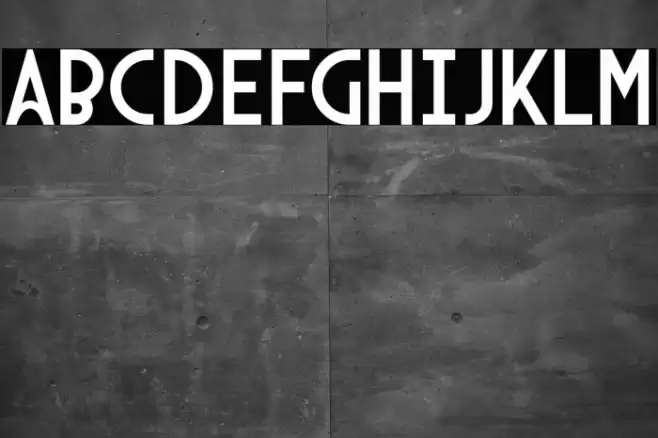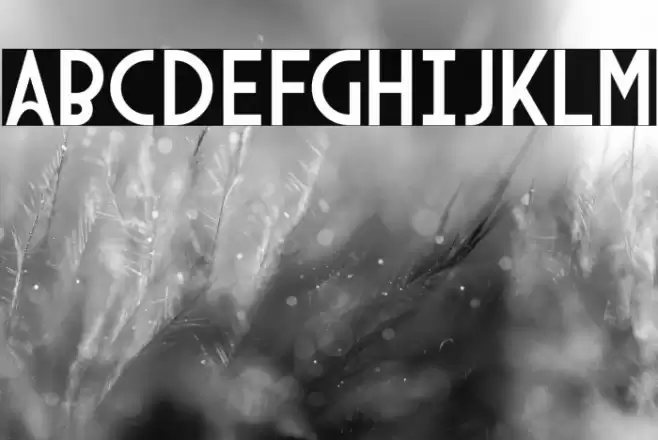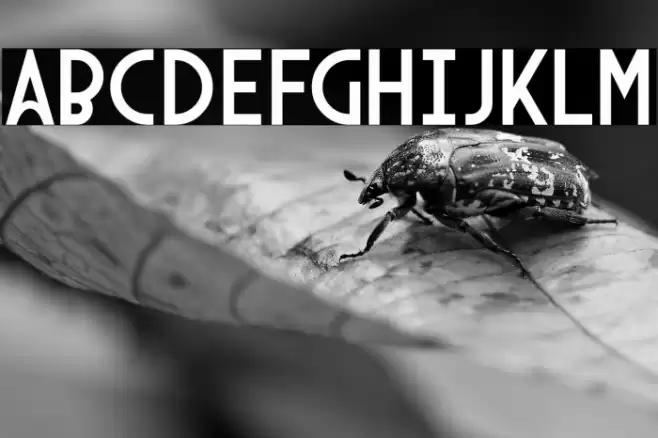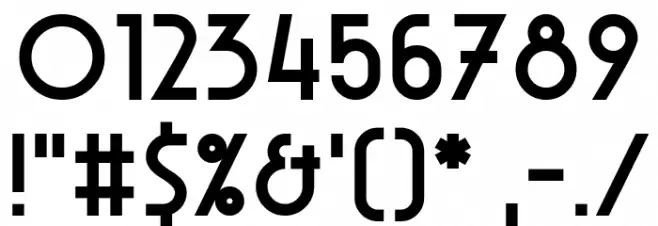
Arcane Nine Font
Arcane Nine Description
This font features a bold and geometric design with clean, sharp lines and a modern aesthetic. The uppercase and lowercase letters maintain a consistent height, creating a uniform appearance. The numerals are distinct and easy to read, with a slightly rounded form that complements the angular style of the letters. The special characters are well-integrated, maintaining the same bold and structured look. Overall, this font exudes a sense of strength and clarity, making it suitable for a variety of design applications.
A bold, geometric font with clean lines and a modern aesthetic from Uncategorized fonts.
- Proposed Projects: Ideal for branding, headlines, posters, and digital media where a strong, modern look is desired.